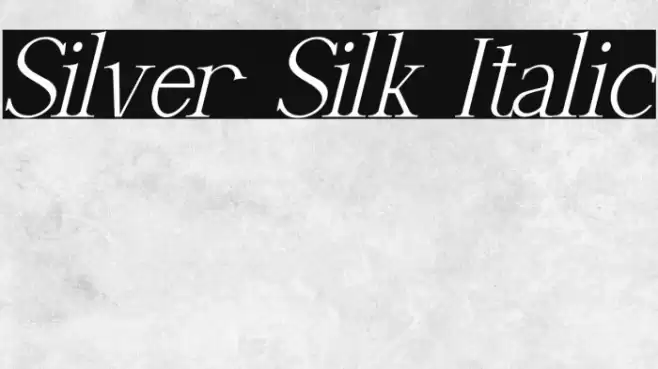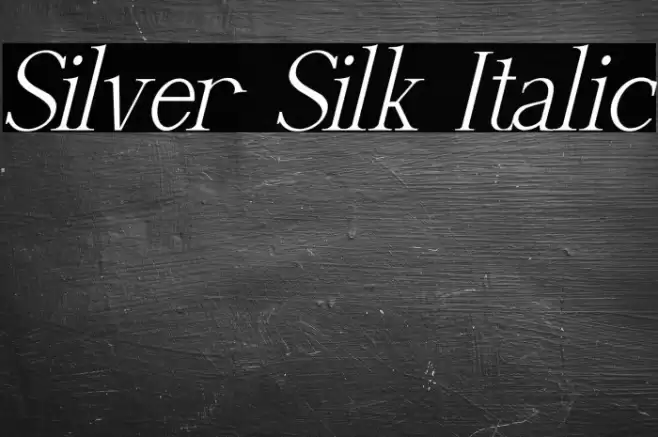
Silver Silk Italic Font
Silver Silk Italic Description
This elegant serif font features a refined italic style, characterized by its graceful and flowing letterforms. The strokes are slightly slanted, adding a sense of motion and sophistication. The font maintains a classic serif structure with delicate serifs that enhance readability while providing a touch of elegance. The contrast between thick and thin strokes is moderate, giving the font a balanced appearance. The overall design is timeless, making it suitable for a variety of applications where a touch of class is desired.
An elegant serif italic font with moderate contrast and graceful letterforms from Uncategorized fonts.
- Proposed Projects: Ideal for wedding invitations, luxury brand logos, editorial design, and elegant packaging.
- Overall Style: Classic
- Use Case: Logos, Editorial design, Invitations